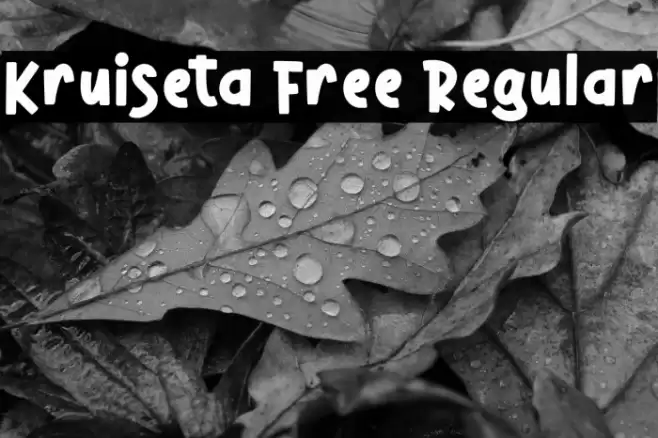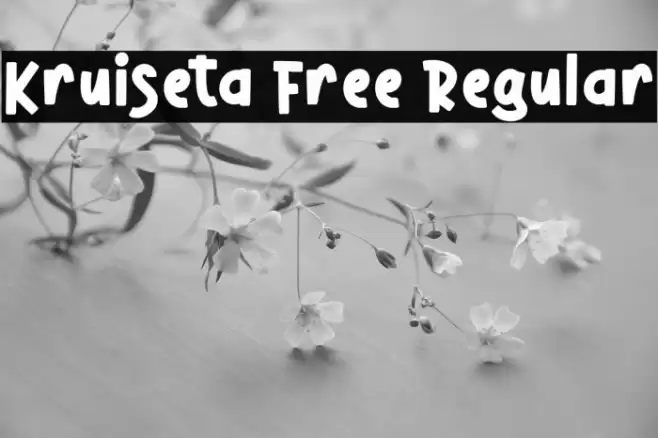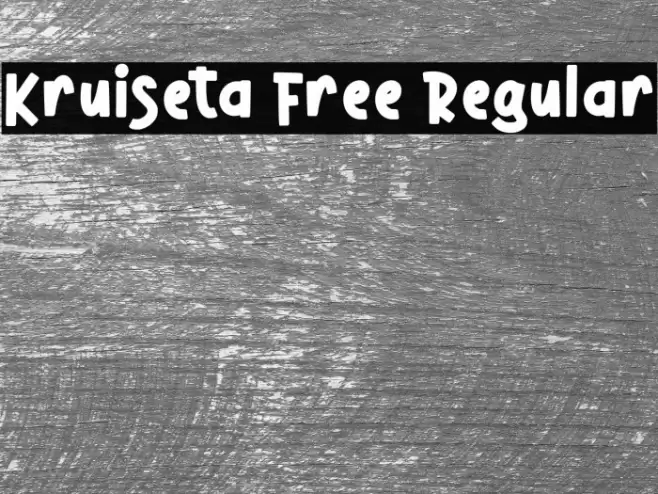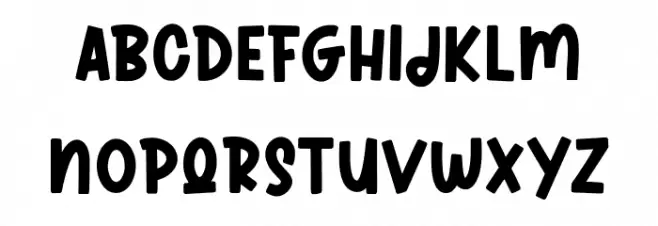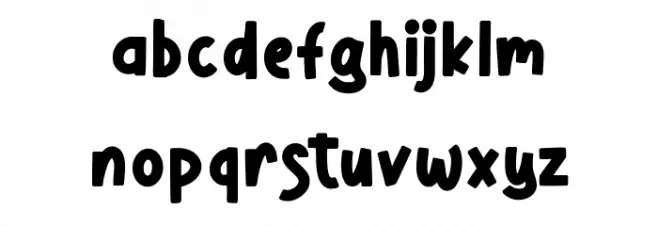
Kruiseta Free Regular Font
Kruiseta Free Regular Description
This font features a playful and bold style with a hand-drawn appearance. The characters are rounded and slightly irregular, giving it a whimsical and informal feel. The uppercase and lowercase letters maintain a consistent style, with a noticeable bounce and varied baseline that adds to its charm. The numbers and special characters follow the same playful design, making it suitable for creative and fun projects. The overall look is friendly and approachable, making it ideal for designs that aim to convey a sense of joy and creativity.
A playful, bold, hand-drawn font with a whimsical and informal style from Uncategorized fonts.
- Proposed Projects: Ideal for children's books, playful branding, party invitations, and creative posters.